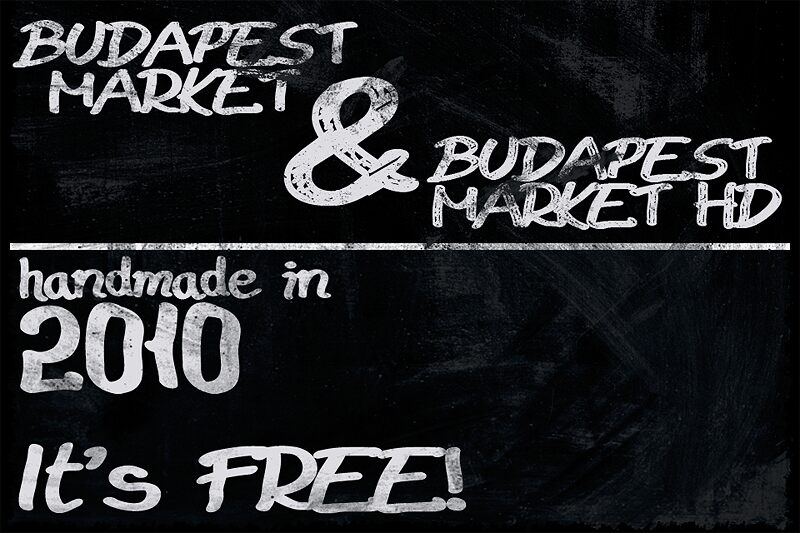
Budapest Market Clean by Attila Acs is a free handwritten display font with broad, ink-heavy strokes, irregular proportions, and the easygoing manner of a quickly painted market sign. Blunt curves and changing angles keep the line lively.
Food packaging is its most convincing setting, especially labels for cafes, bakeries, street-food stalls, and produce shops where the lettering can echo hand-painted menus and window signs. It also suits festival posters, album artwork, and casual merchandise for audiences drawn to friendly, handmade branding instead of a polished retail voice or tightly controlled corporate graphics.